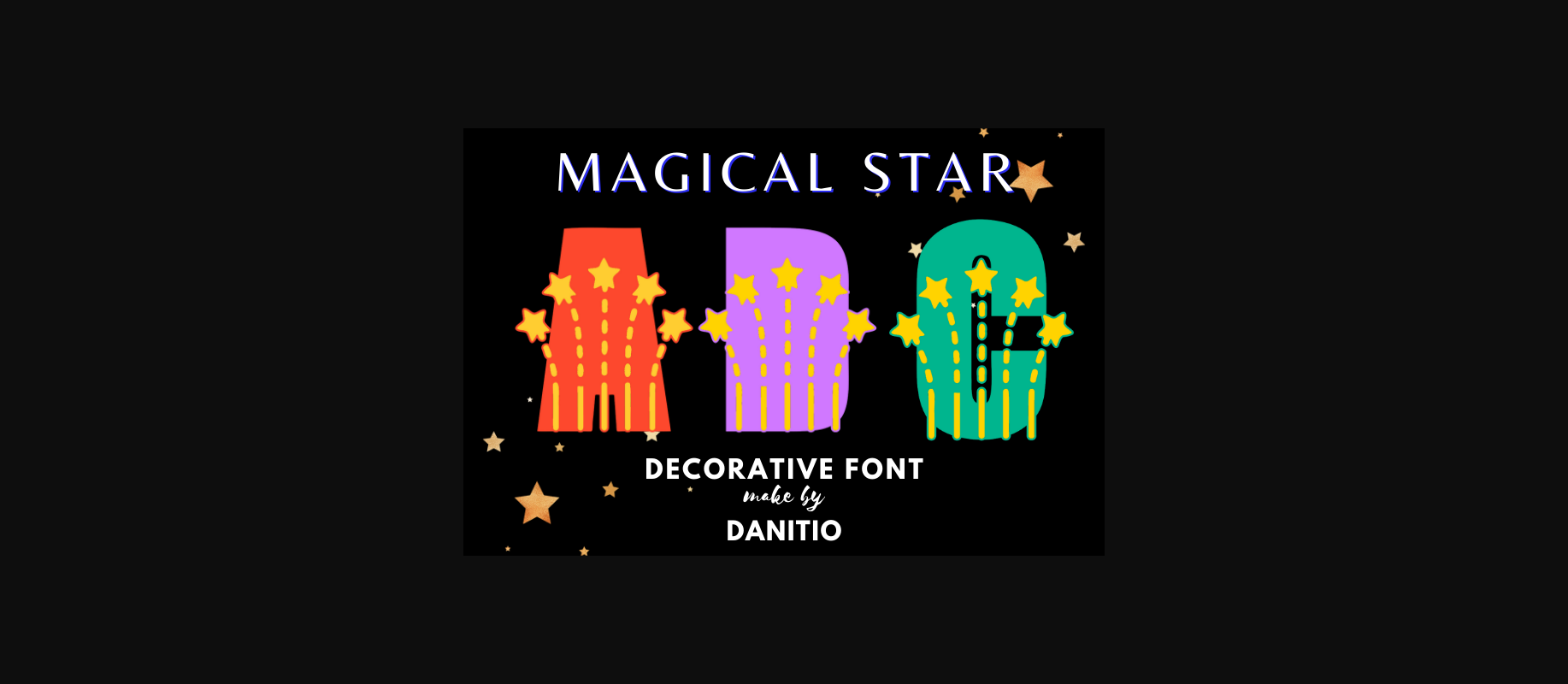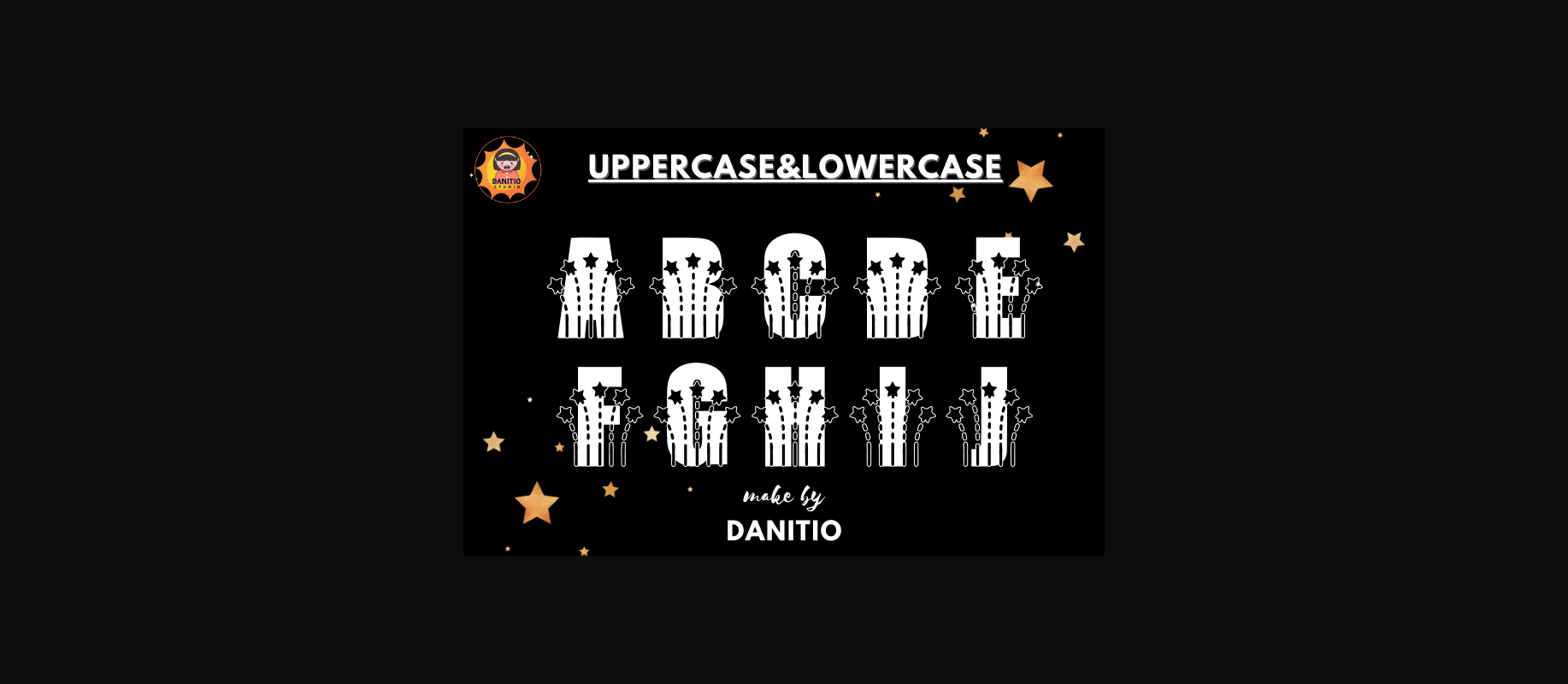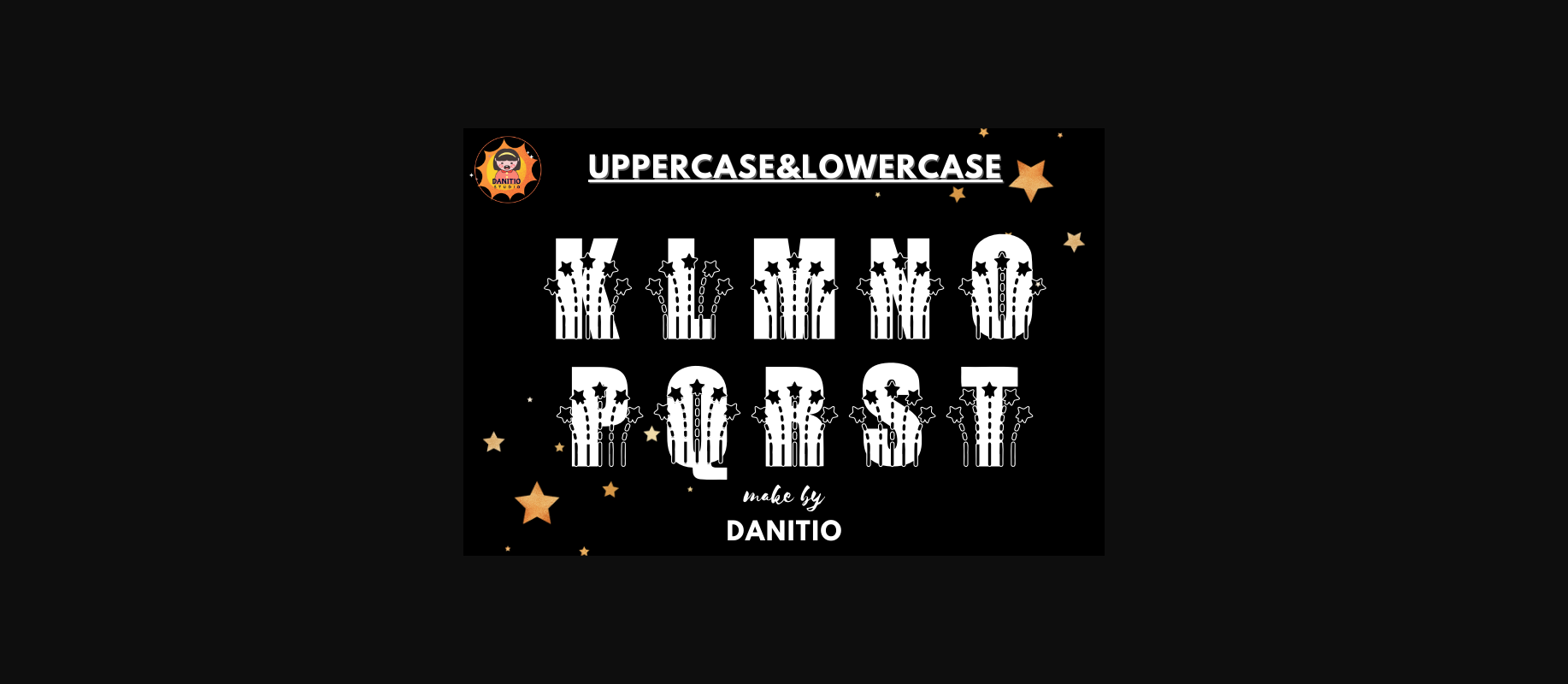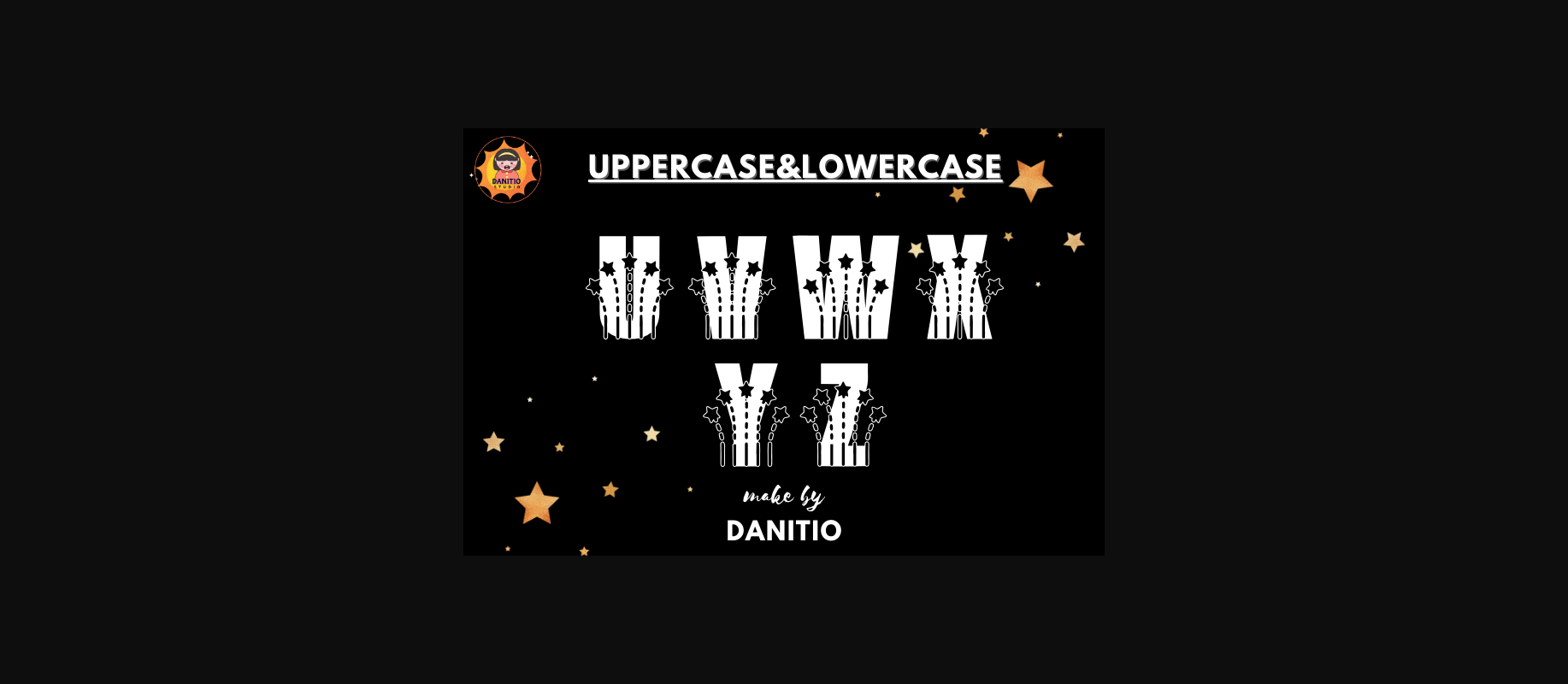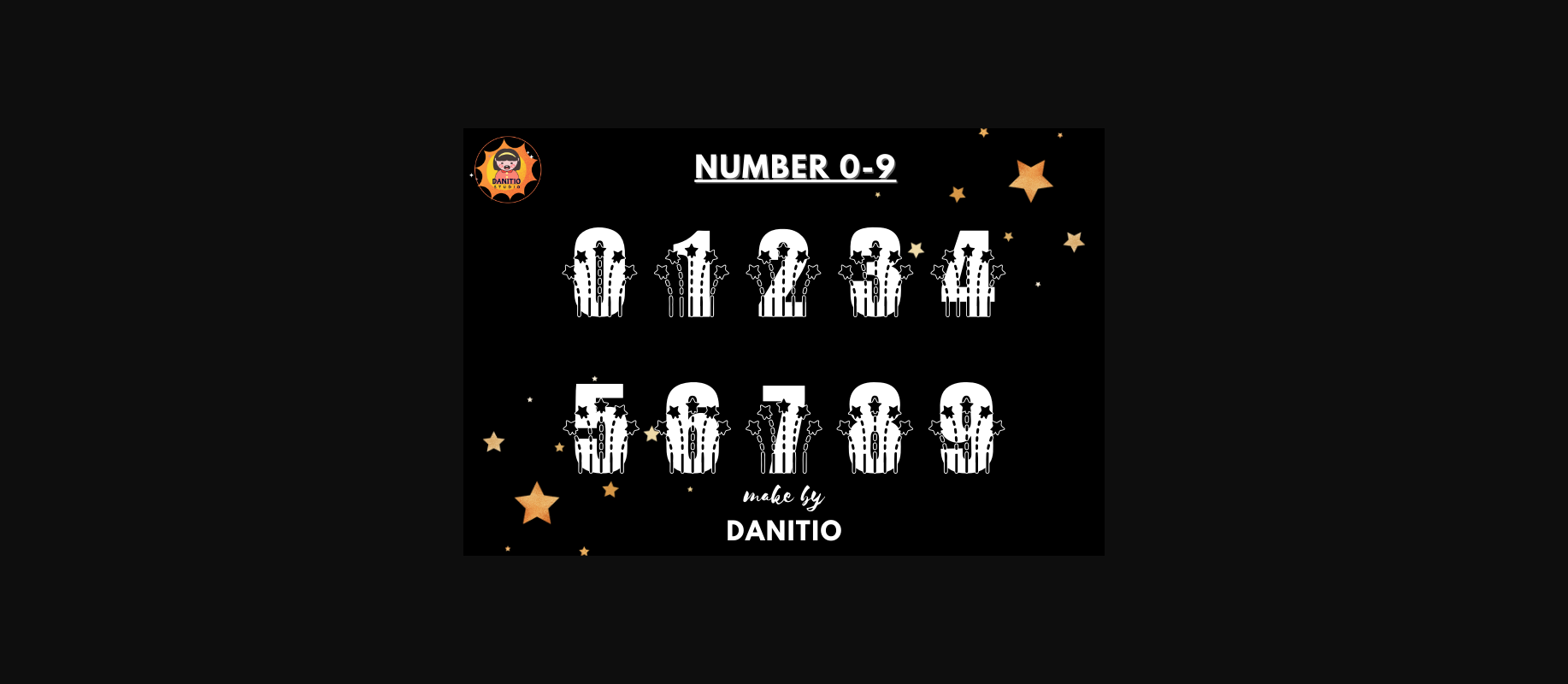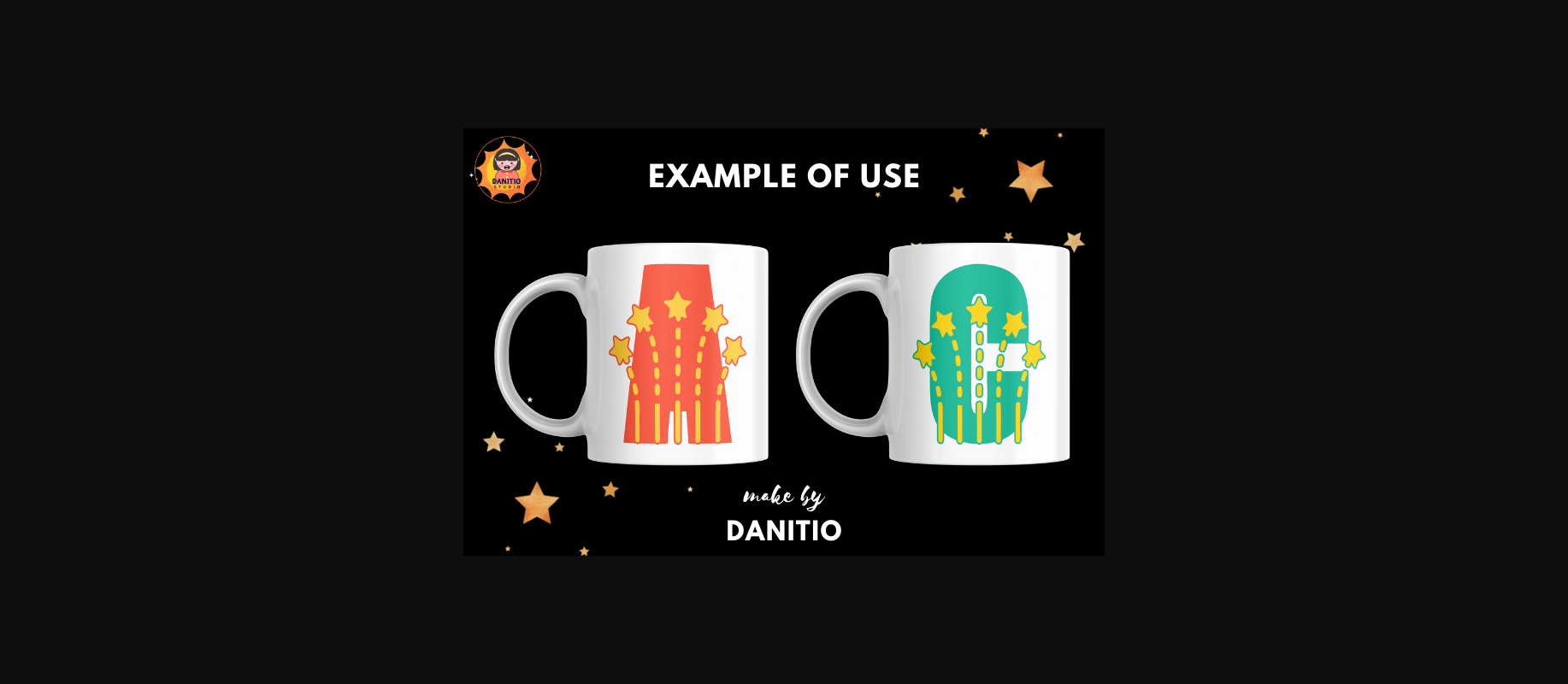
Magical Star Font
About Magical Star Font
Magical Star is a decorative font. that combines letters decorated with cute flying stars to make it look unusual and cool at the same time. This style emphasizes cuteness in every design. Great for birthday cards, t-shirts, mugs, tote bags and other items. that you deem appropriate Hope you enjoy my fonts.